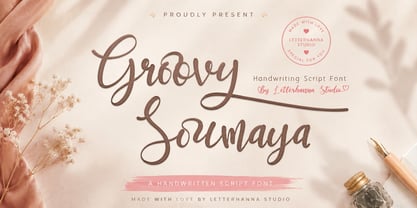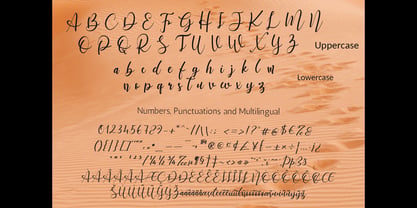
Groovy Soumaya
by Letterhanna Studio
The Groovy Soumaya Font Family was designed by Rinaldo Hasibuan and published by Letterhanna Studio. Groovy Soumaya contains 1 styles. More about this family
Groovy Soumaya Font is a beautiful and flowing handwritten font. Use it for wall displays, wedding invitations, social media post logos, advertisements, product packaging, product designs, labels, photography, watermarks, invitations, stationery, and any project that requires impressive typography.
To achieve that authentic handwritten feel, Groovy Soumaya Font comes with a full set of lowercase alternates as well as 34 ligatures.
Designers: Rinaldo Hasibuan
Foundry: Letterhanna Studio